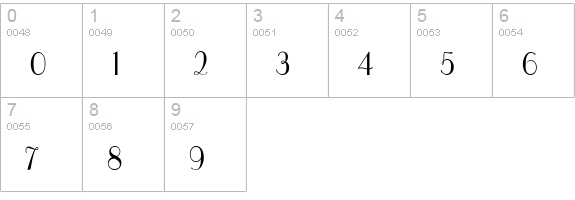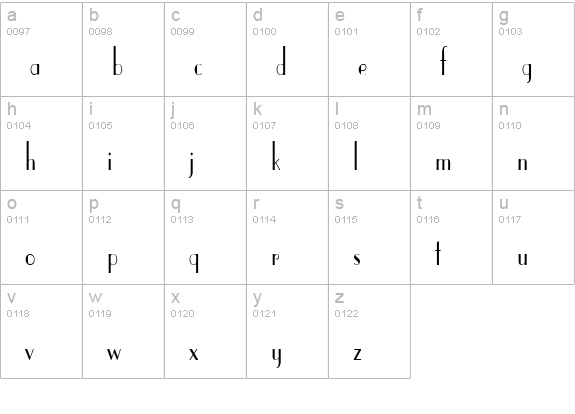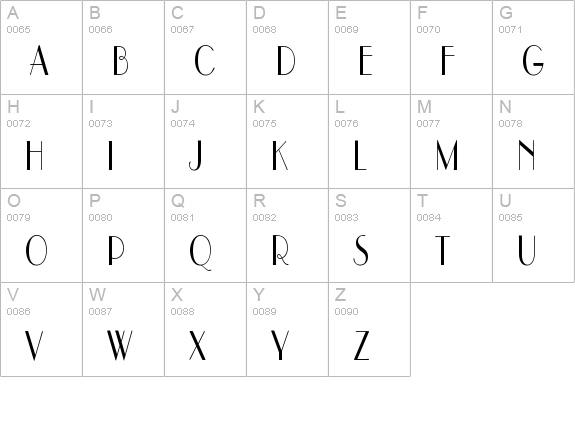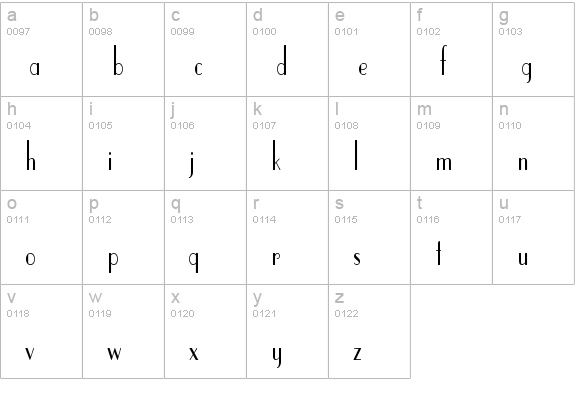
Paris Condensed Normal Font Details
Paris Condensed Normal is the standard, neutral, condensed-width variant in the Paris typeface family \xE2\x80\x94 well suited to general body text, paragraphs, and standard typographic work.
Paris Condensed Normal is a sleek and stylish font that exudes elegance and sophistication. Its condensed letterforms are perfect for adding a touch of refinement to any design project. This font is versatile and can be used for a variety of purposes, including headings, logos, posters, and more. The clean lines and balanced proportions of Paris Condensed Normal make it highly legible and easy on the eyes. Its modern and minimalist design makes it a great choice for contemporary designs, while its timeless appeal ensures that it will never go out of style. What's even better is that Paris Condensed Normal is available for free! You can easily download this font from FontsMarket.com, a trusted source for high-quality fonts. Whether you're a professional designer or a casual hobbyist, this font is a valuable addition to your collection. With Paris Condensed Normal, you can effortlessly elevate your designs and make a lasting impression. Its sleek and sophisticated aesthetic is sure to captivate your audience and leave a lasting impact. So why wait? Download Paris Condensed Normal today and take your design projects to new heights of elegance and style.